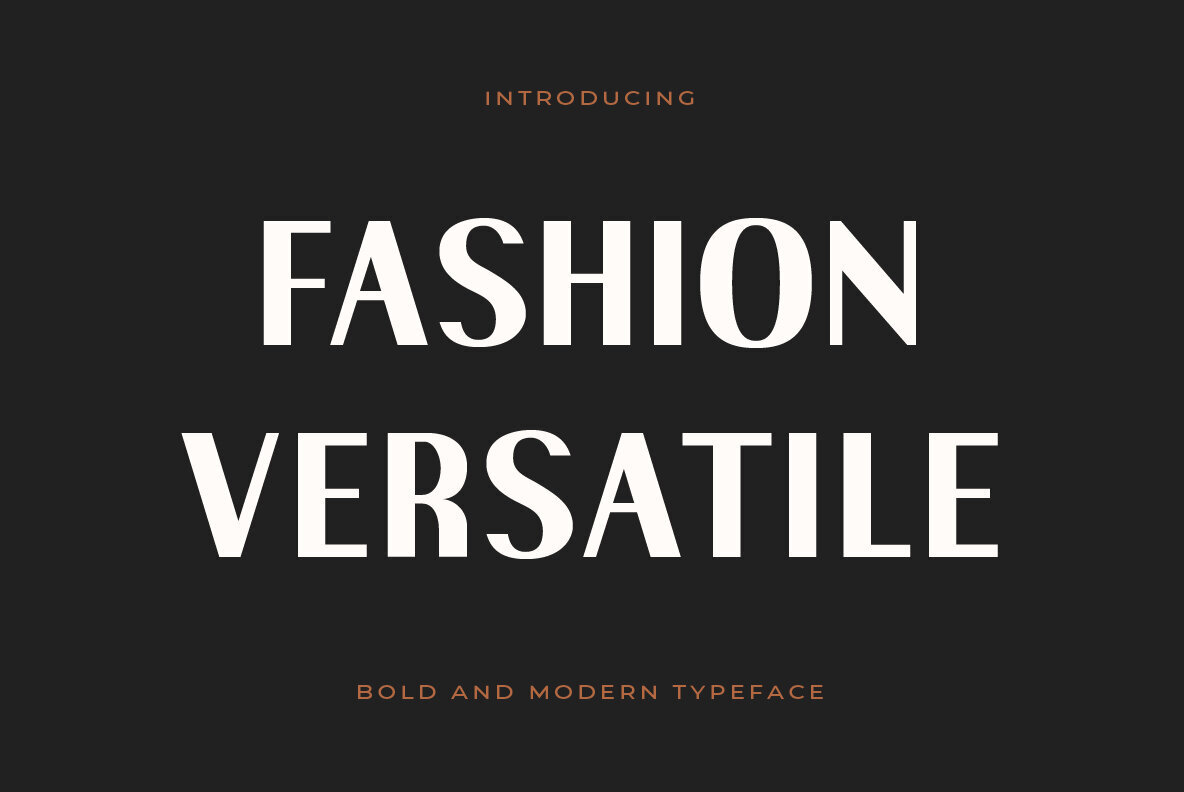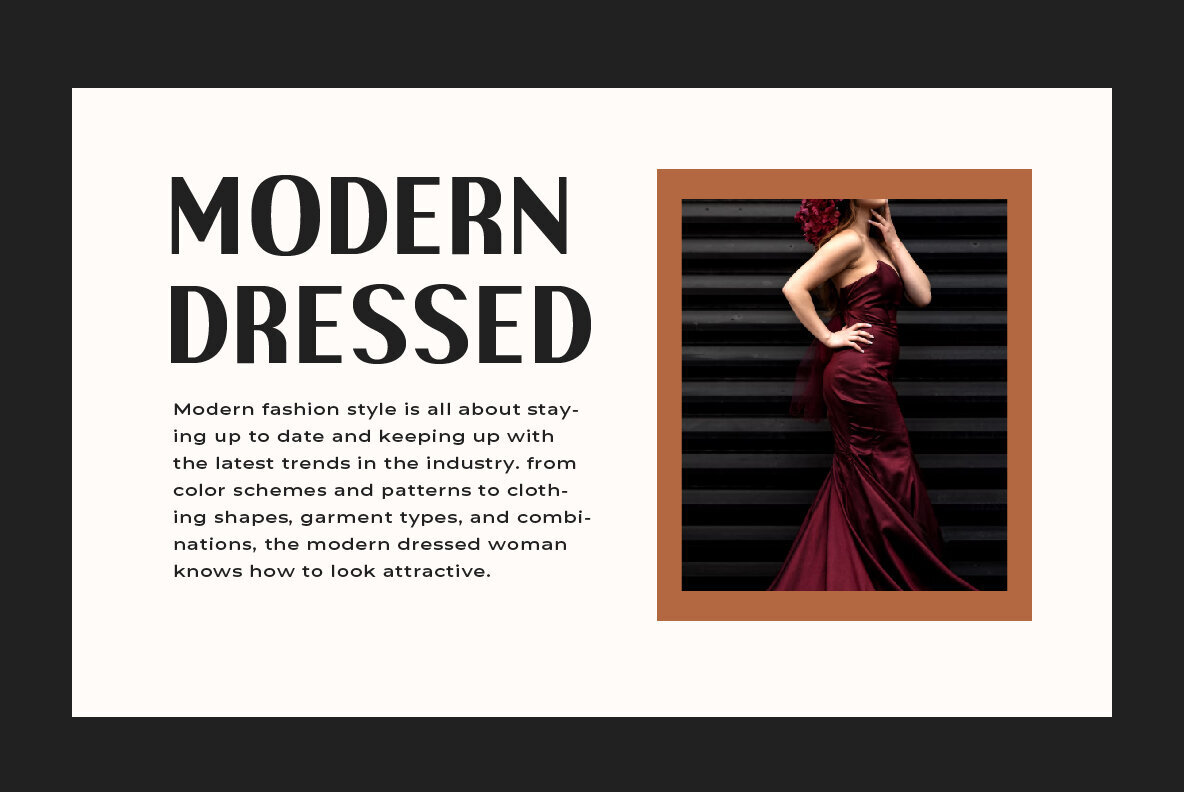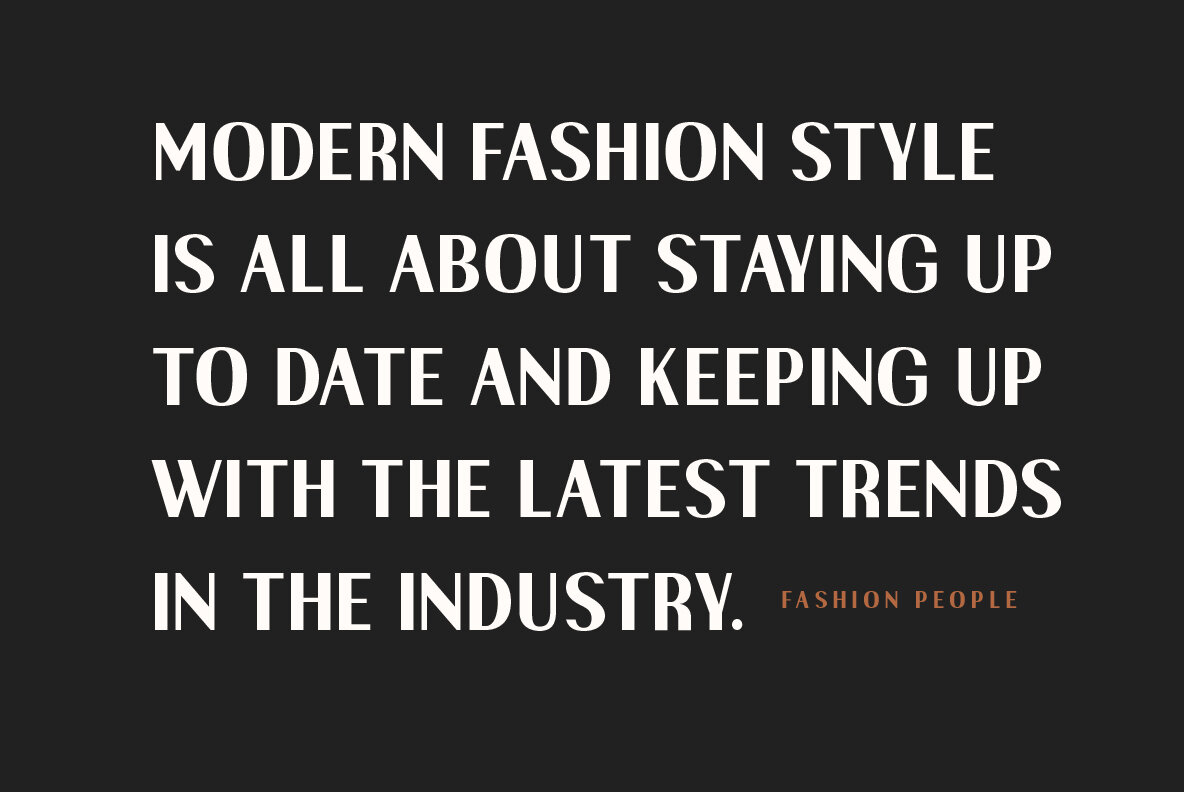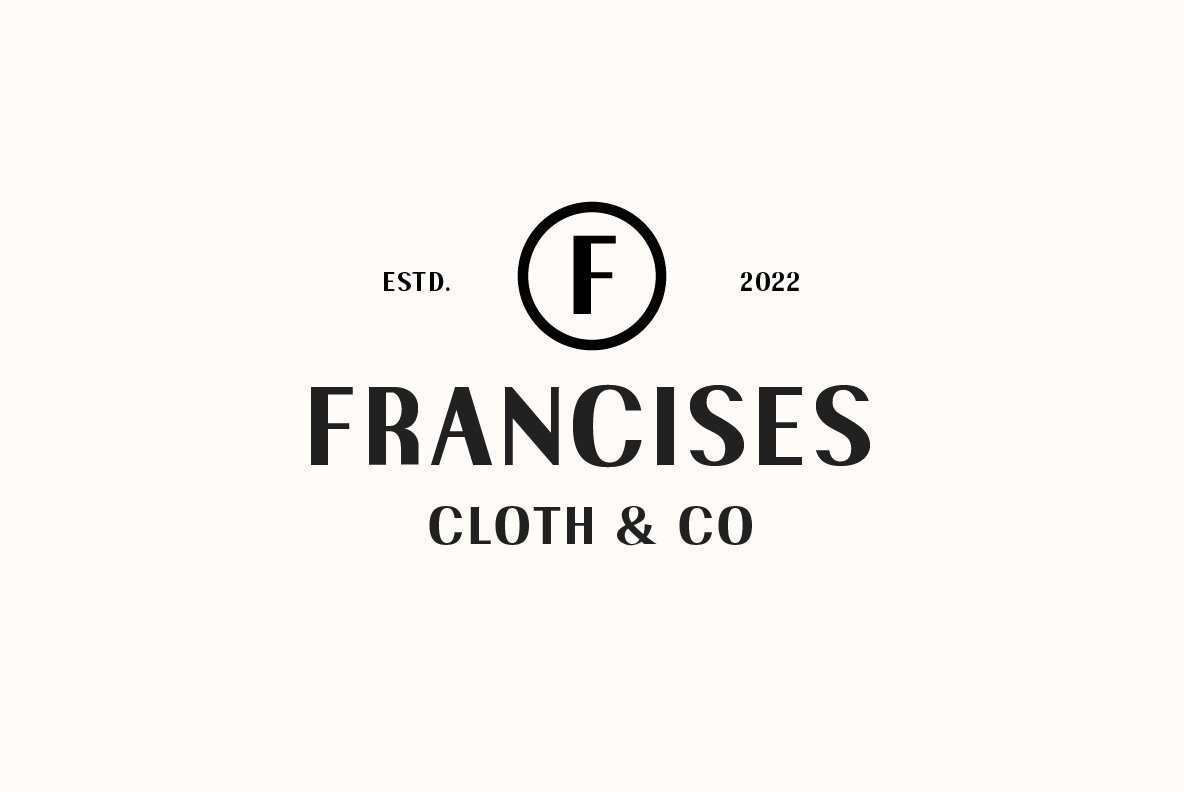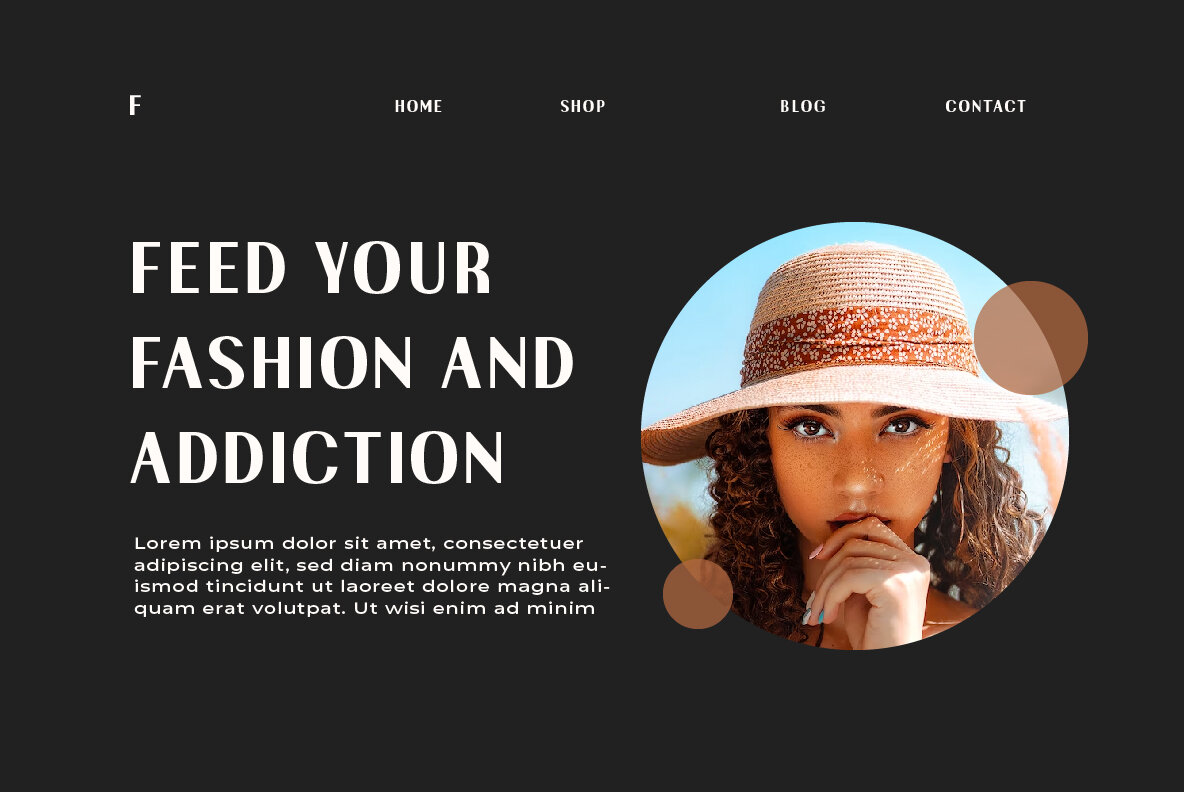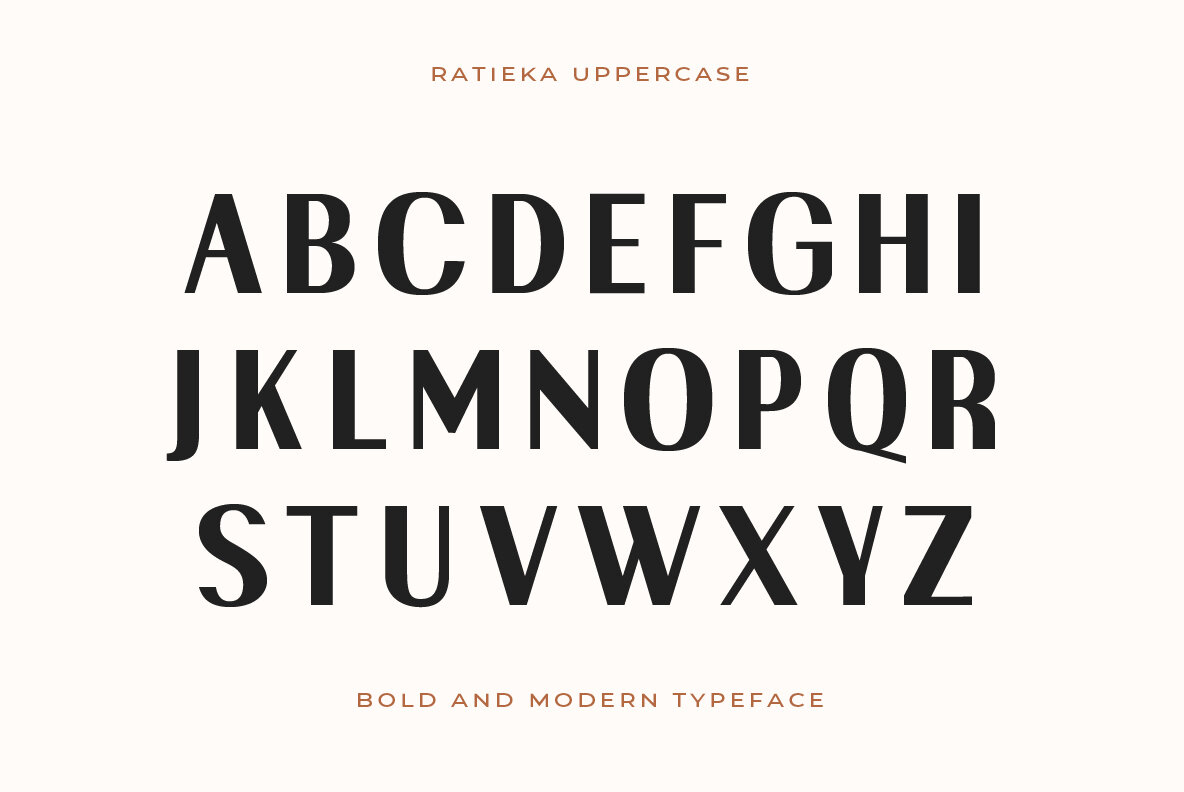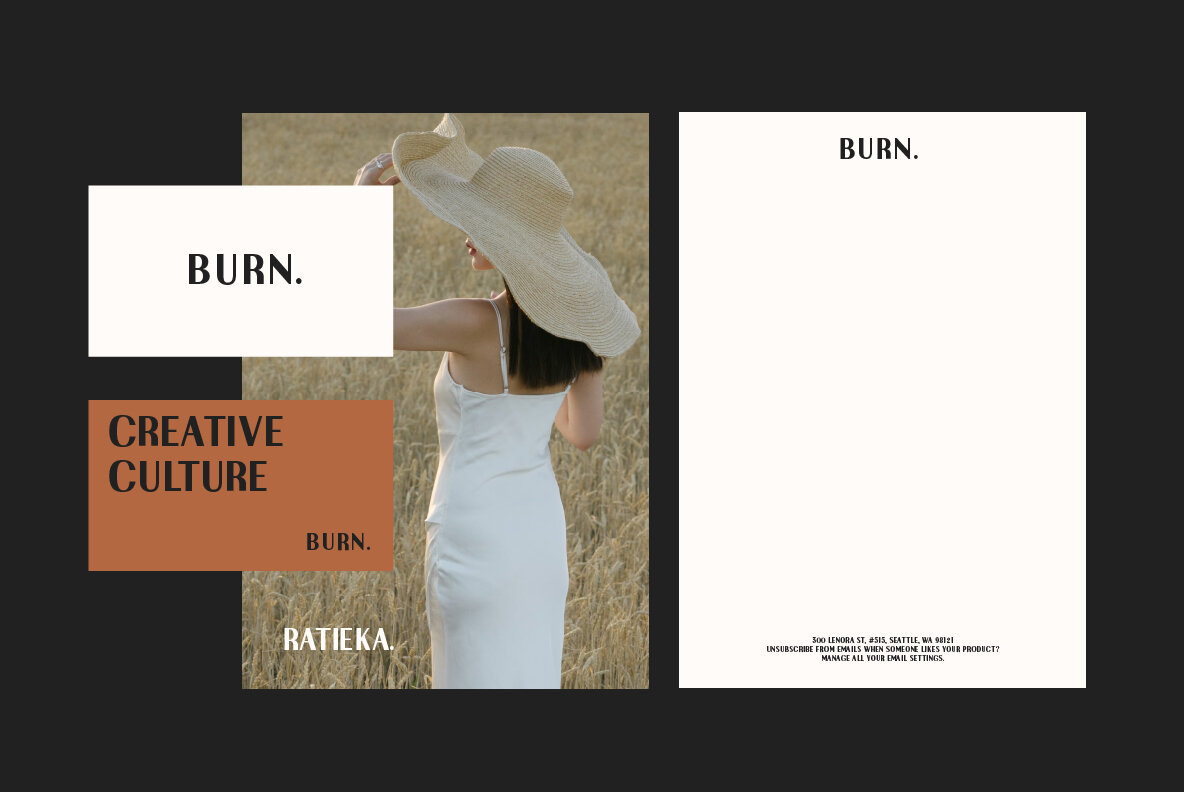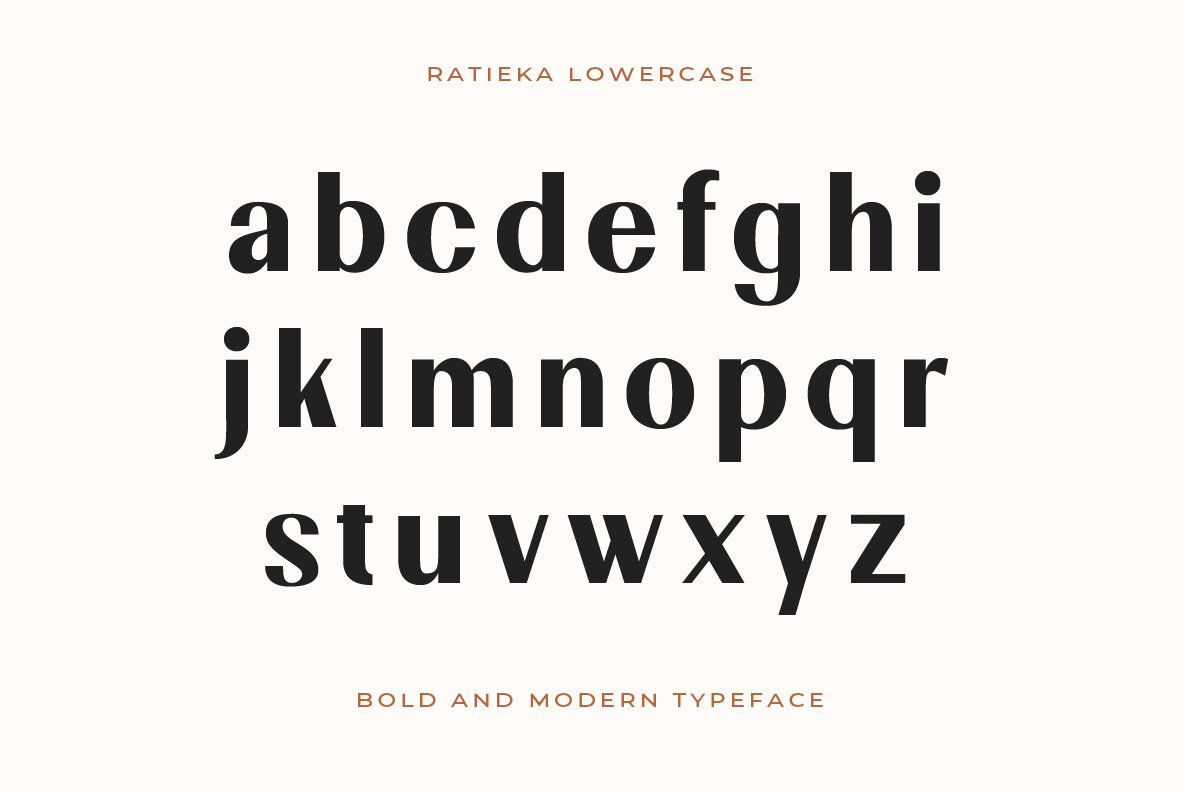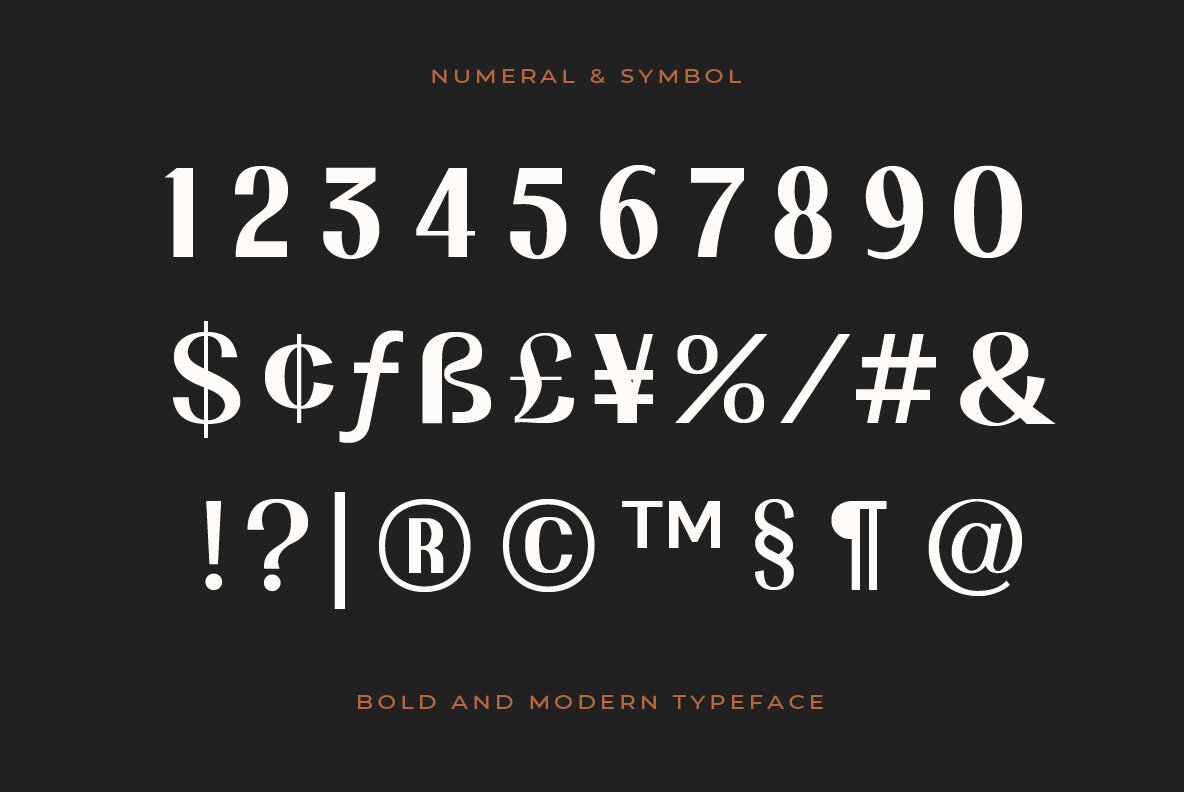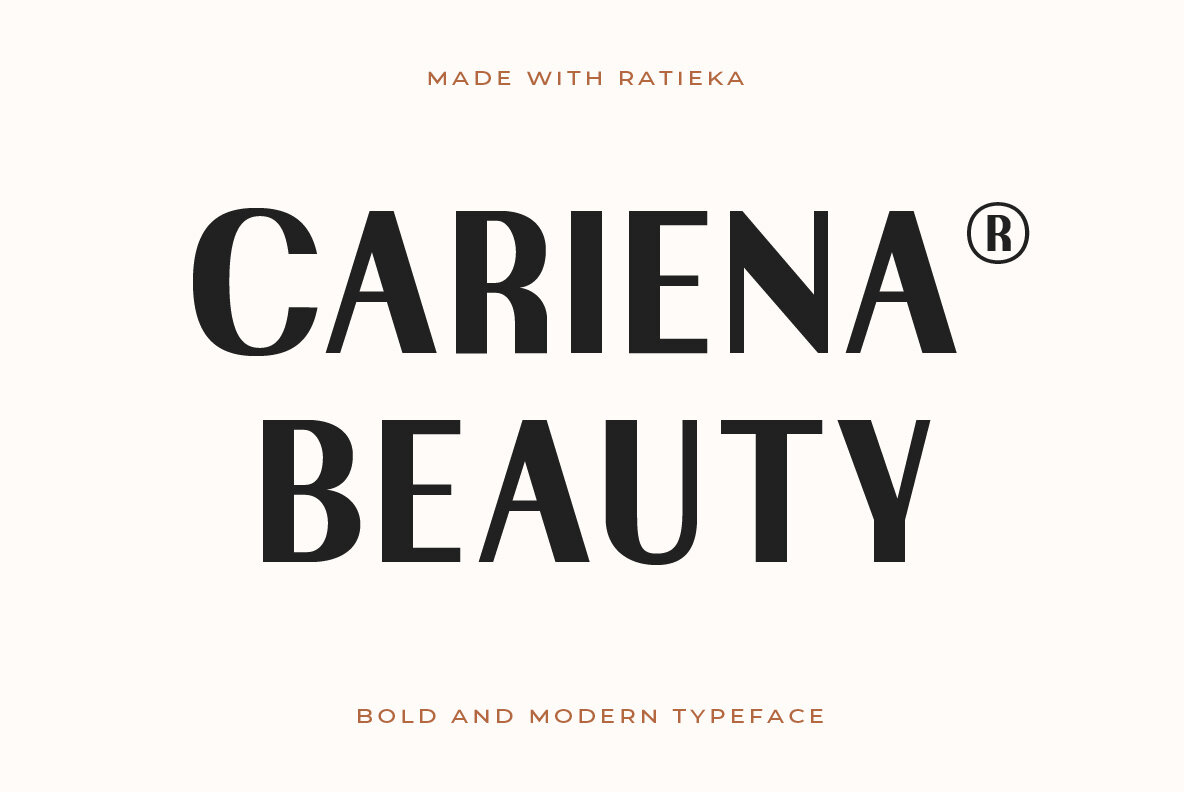
Ratieka is a single font that effortlessly combines polished style with superior readability. Its sophisticated letterforms make it ideal for branding and logo design, while its legibility ensures strong communication in websites, advertisements anytime clarity matters.